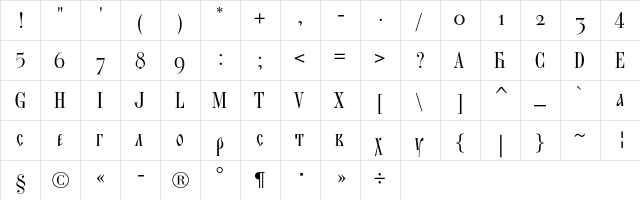
BlagovestTwoC Regular Font Preview
BlagovestTwoC Regular
Design Context for BlagovestTwoC Typeface
BlagovestTwoC offers clean, dependable letterforms without strong stylistic allegiance, making it a practical choice for designers who need flexibility.